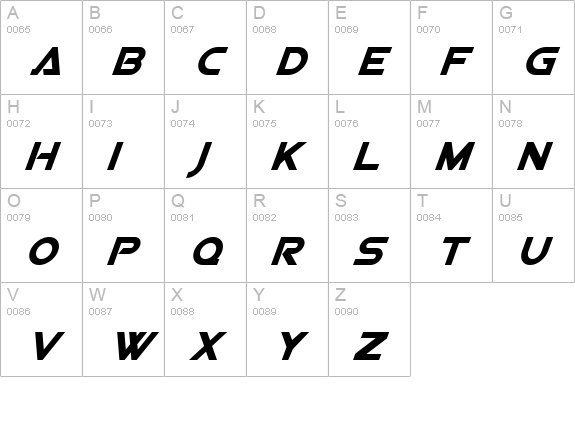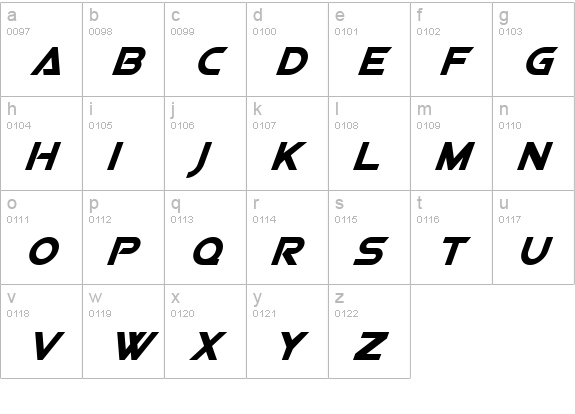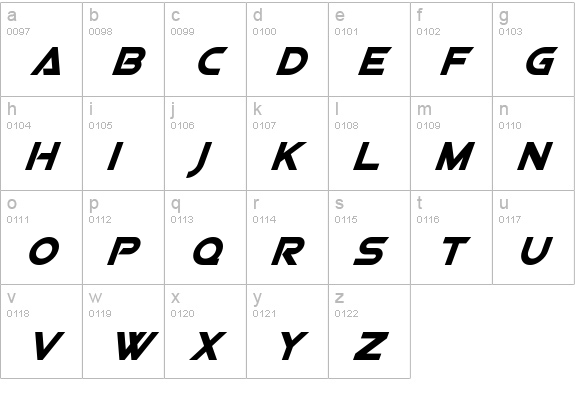
Viper Squadron Solid Italic Font Details
Viper Squadron Solid Italic is a distinctive, italic variant in the Viper typeface family \xE2\x80\x94 well suited to design and typography projects.
Viper Squadron Solid Italic font is a stunning display font that exudes power, strength, and elegance. Its bold and slanted characters give any design a fierce and daring look. Perfect for headlines, logos, and branding projects, this font is designed to make a strong impact. With its precise and sharp letterforms, Viper Squadron Solid Italic font captures attention and demands to be noticed. The italic styling adds a touch of sophistication and modernity, making it a versatile choice for various design applications. This font is not only visually appealing but also easily readable, ensuring that your message gets across effortlessly. Whether you're creating posters, banners, or digital graphics, Viper Squadron Solid Italic font will make your designs stand out from the crowd. One of the best things about Viper Squadron Solid Italic font is that it is freely available to download at FontsMarket.com. You can easily access this font and enhance your creative projects without any cost. This provides you with the opportunity to experiment and explore the various possibilities this font offers, without any limitations. So, why wait? Download Viper Squadron Solid Italic font today from FontsMarket.com and let your designs soar to new heights. Unleash the power and elegance of this font and create eye-catching visuals that leave a lasting impression.